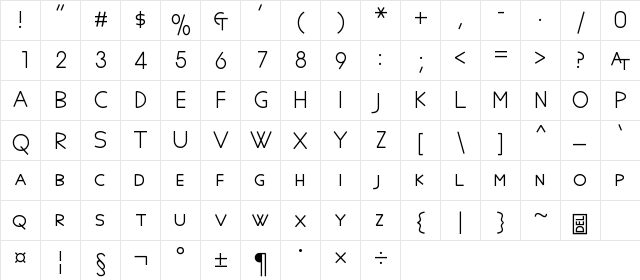
Anatolian Regular
| Designer | George Douros |
Design Context for Anatolian Typeface
Anatolian offers clean, dependable letterforms without strong stylistic allegiance, making it a practical choice for designers who need flexibility.